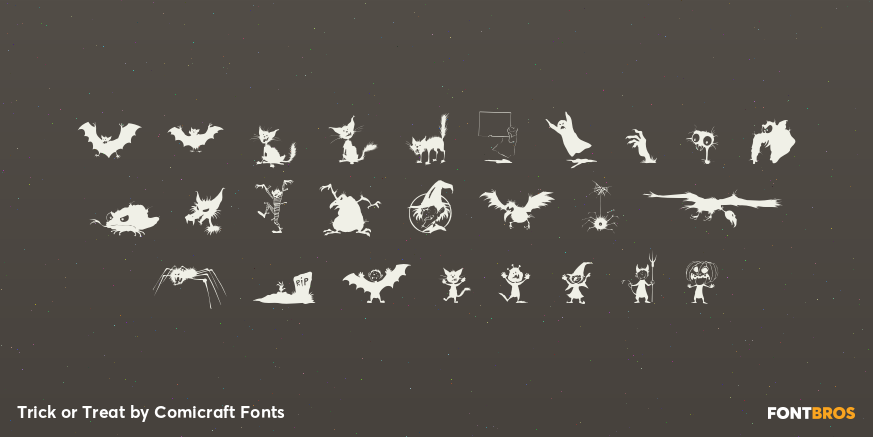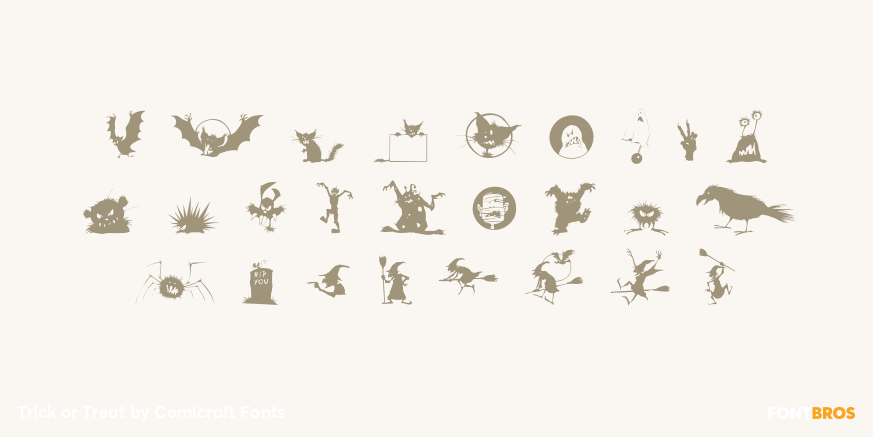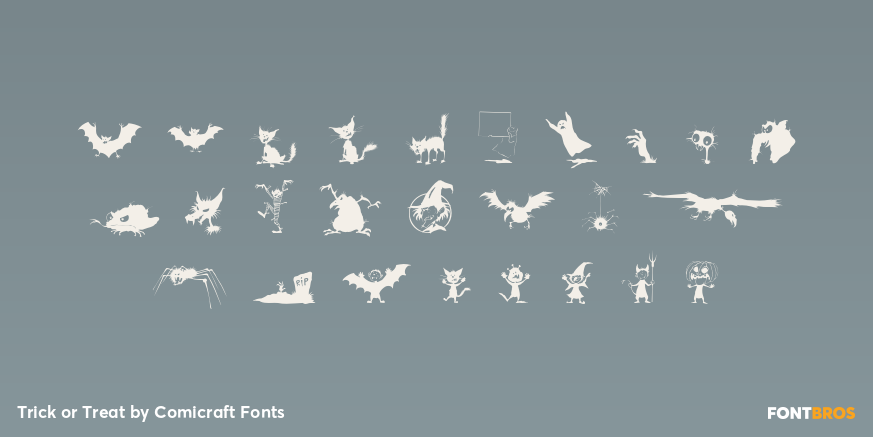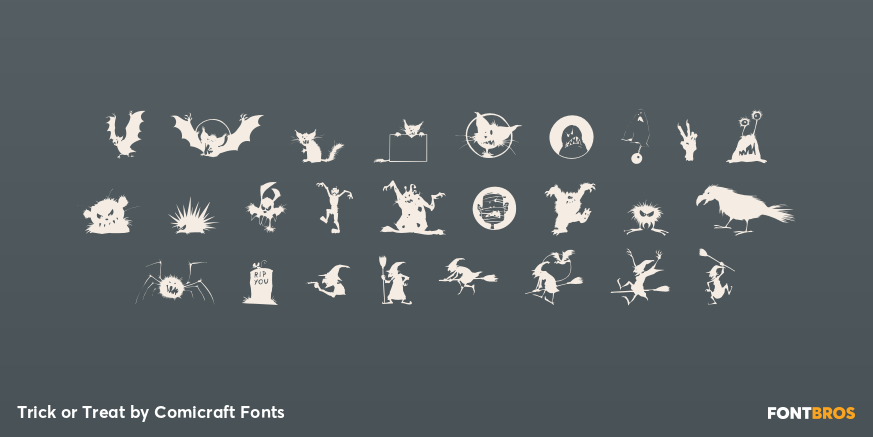
Trick or Treat
Font Family by Comicraft Fonts
Bats, Cats, Ghosts and Ghouls, Zombies, Witches and Spiders galore. Cackling to herself alone in her coven, our very own Scary Godmother, Lilou, threw eyes of newts and wings of bats into her cauldron and sent her unearthly children down the street with mischief in mind. Our Halloween Dingbats have every kind of Spooky Monster she could imagine, and a few more besides. Keep your porch light on.